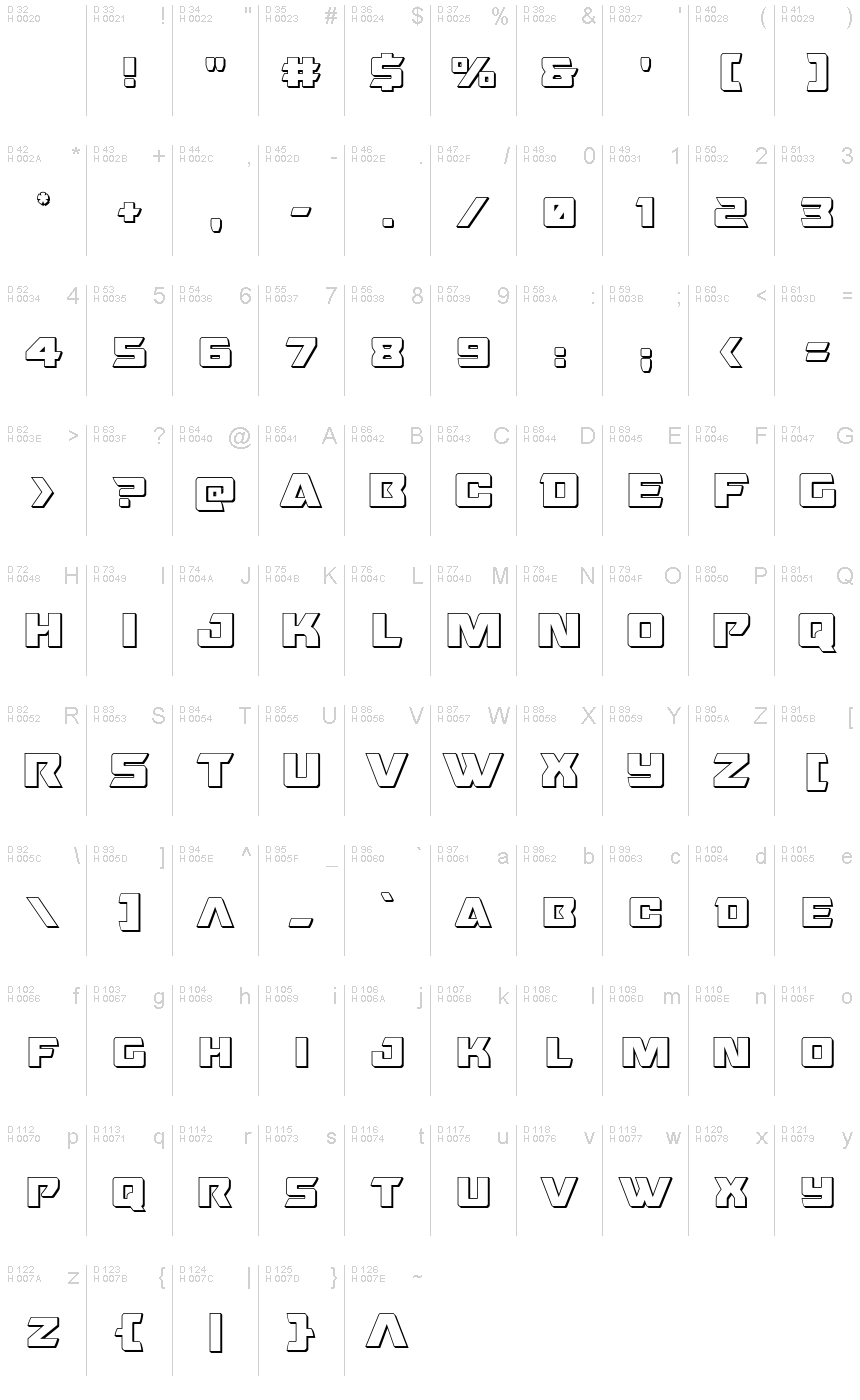
Oceanic Drift 3D
Oceanic Drift 3D is a captivating font that effortlessly blends retro-futuristic aesthetics with a bold, expansive presence. Crafted by the talented designers at Iconian Fonts, this display font radiates a sense of technological sophistication and dynamic energy, making it a standout choice for a wide range of design projects.
The three-dimensional, techno-inspired style of Oceanic Drift 3D immediately commands attention, evoking a feeling of futuristic elegance. Its expanded letterforms and striking visual depth lend a commanding presence, while the overall design exudes a sense of technological prowess and cutting-edge innovation. This font is a remarkable choice for designers seeking to create impactful, visually striking designs that captivate audiences.